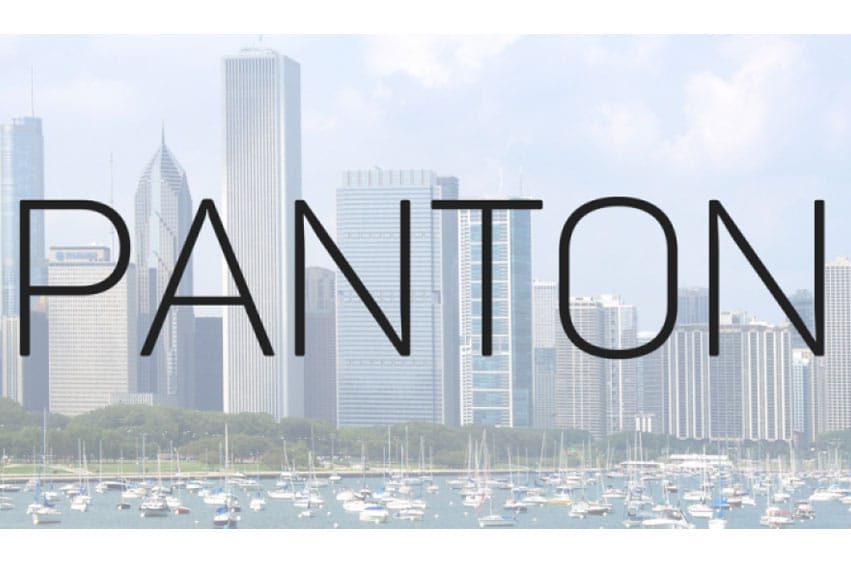
Panton Font is an elegant intricate sans serif emerging font style that is contemporary. It is characterized by good readability in both the web and print design division, clean geometric style, good kerning, good performance of Web-fonts and readability and so on.
As for the grotesque typefaces that belong to classics – in Panton, he has the style in expressed perfect softened geometric forms. The font is most appropriate for headlines of different sizes and for text pieces, both containing the maximum and minimum amounts of information.